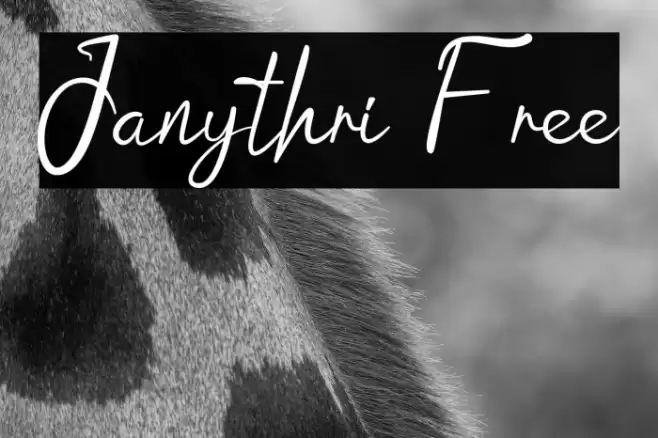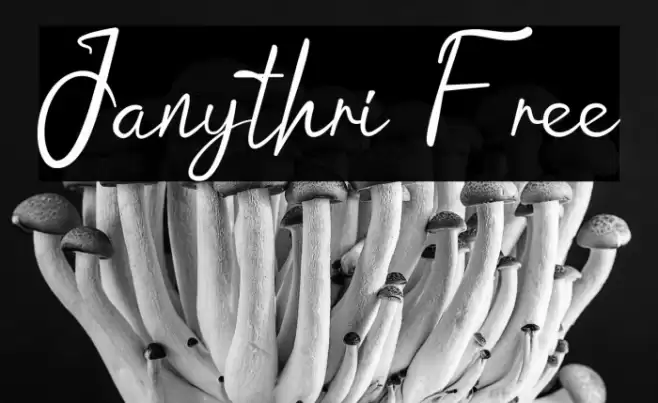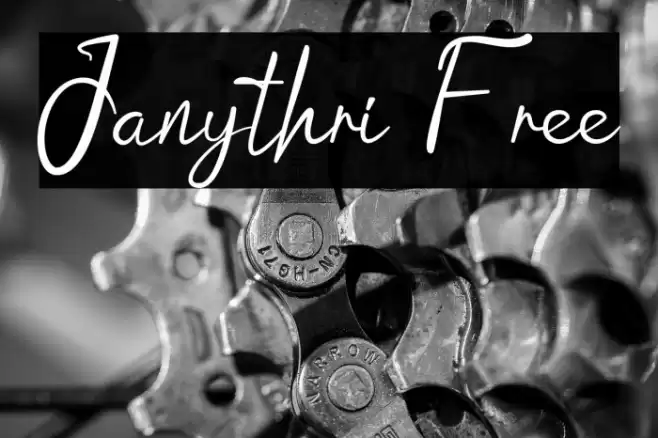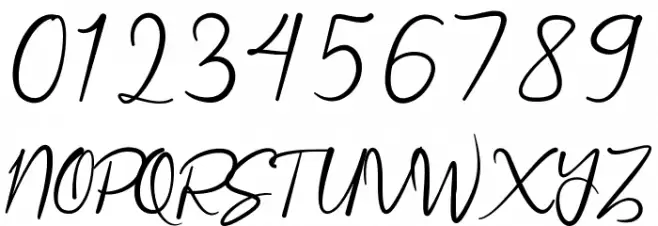
Janythri Free Font
Janythri Free Description
This font features a flowing, cursive style that mimics elegant handwriting. The letters are connected, creating a seamless and fluid appearance. The uppercase letters are bold and slightly slanted, adding a dynamic feel, while the lowercase letters maintain a consistent flow with subtle variations in stroke thickness. The numerals are rounded and maintain the cursive theme, enhancing the overall cohesiveness of the design. Special characters are integrated smoothly, ensuring versatility in various contexts. This font exudes a sense of sophistication and creativity, making it suitable for artistic and expressive projects.
A cursive, handwritten-style font with elegant, flowing characters from Regular fonts.
- Proposed Projects: Ideal for wedding invitations, greeting cards, personal branding, and artistic projects.
- Overall Style: Elegant, Artistic
- Use Case: Logos, Invitations, Artistic Text